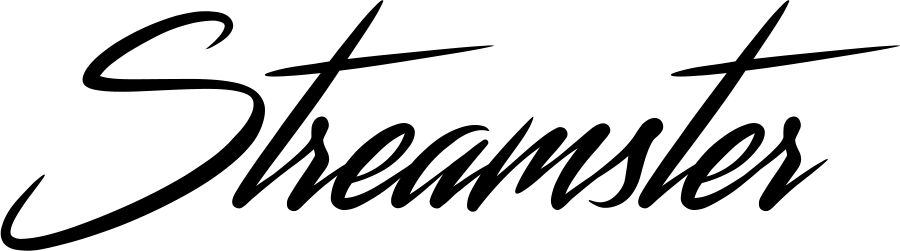
Streamster Font
Want a more spiritual text? You should use a script font to achieve that! This script font is called Streamster and it has an elegant feeling to it. You can use it to write classic movie titles and posters, theater flyers, classic novel introductions, cosmetic packaging, personal blogs, and letters.